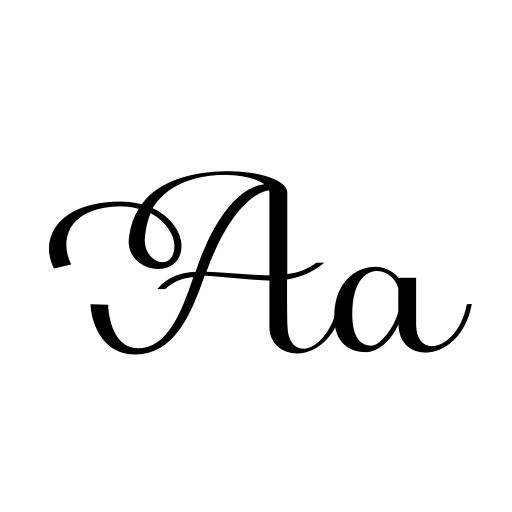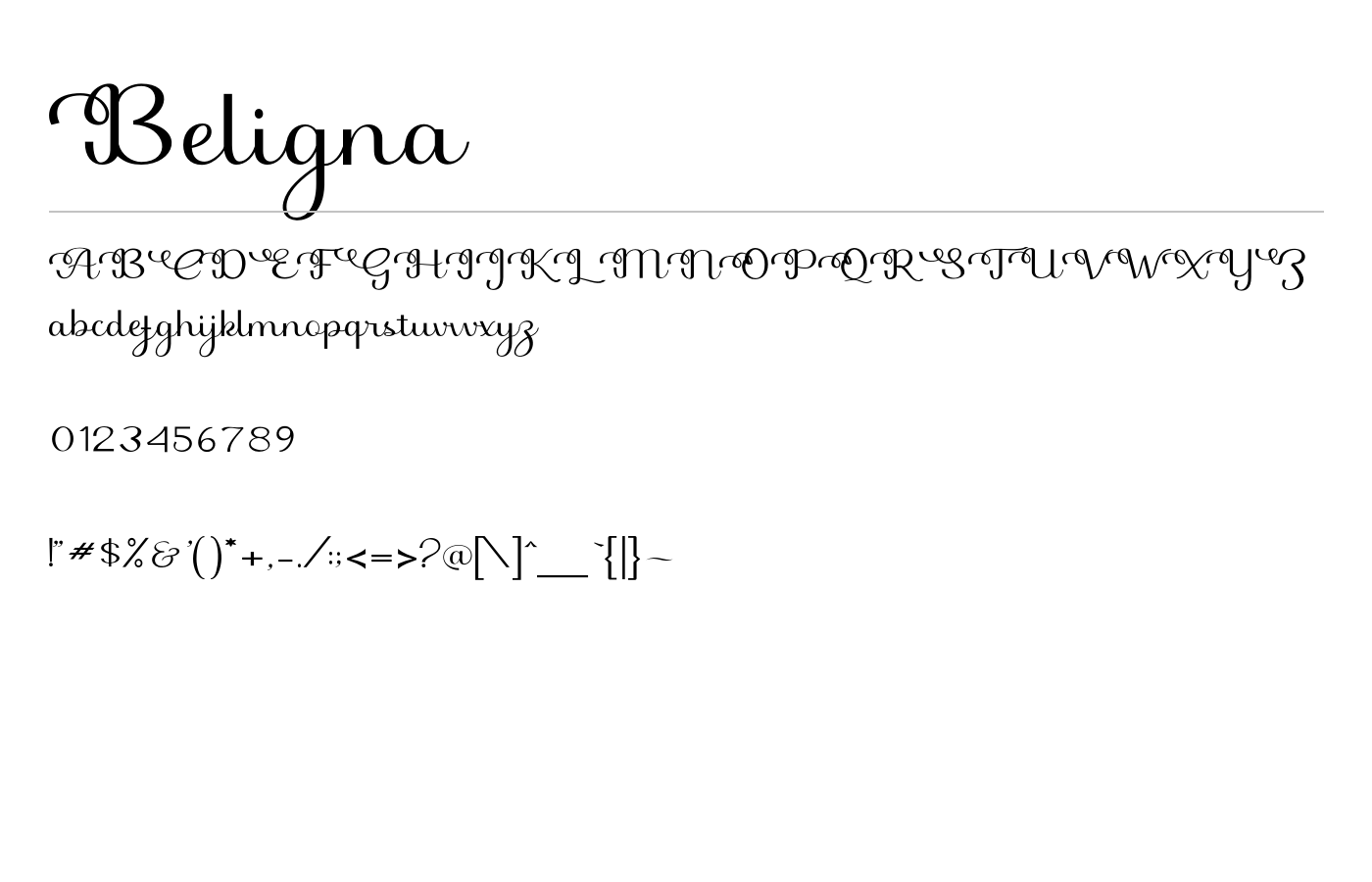
Beligna is an elegant script font with delicate, flowing letterforms and high contrast between thick and thin strokes, lending it a refined and graceful appearance. Its ornate uppercase characters and smooth, connected lowercase make it ideal for sophisticated branding, invitations, and decorative headlines where a touch of luxury and femininity is desired. This font shines in designs that aim to convey elegance, charm, and artistic flair.
Beligna Font
About Beligna Font
| Font family | Beligna Font |
| Designer | saiful bahri |